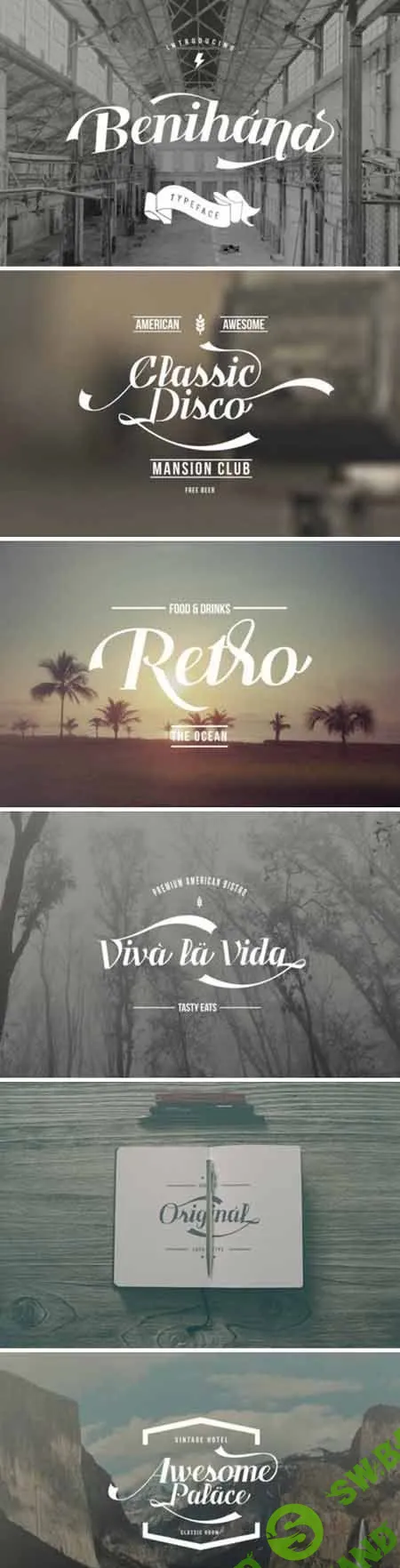
Название: Benihana Font
Benihana Font
Описание:
Benihana is a classy and cool handwritten font with a unique style. Fall in love with its modern elegance.